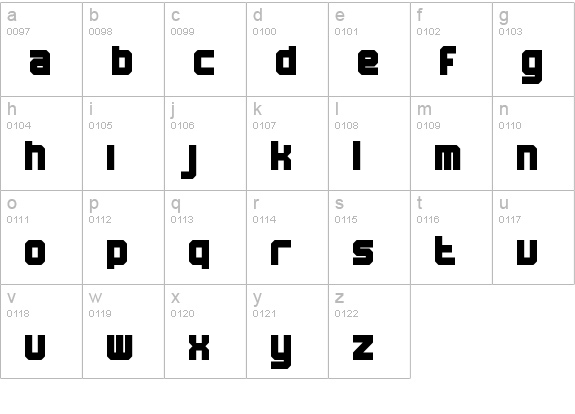
BN Machine Font Details
Introducing BN Machine font, a sleek and modern typeface that exudes a sense of innovation and efficiency. With its sharp edges and clean lines, this font is perfect for conveying a sense of technological advancement and precision in your designs. Designed with versatility in mind, BN Machine font is suitable for a wide range of projects, from branding and marketing materials to web design and editorial layouts. Its futuristic aesthetic makes it ideal for conveying a sense of progress and cutting-edge technology. And the best part? BN Machine font is available for free download at FontsMarket.com. So go ahead and elevate your designs with this dynamic and impactful typeface today!